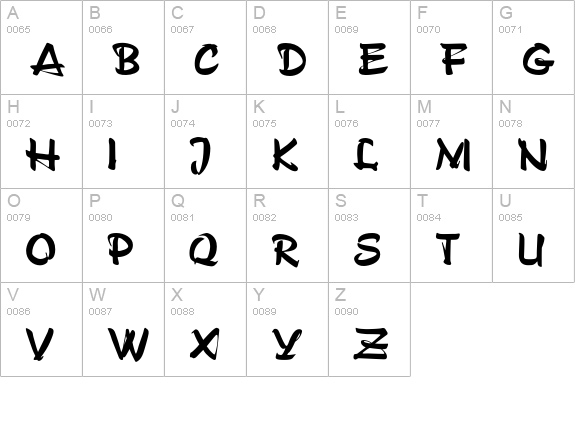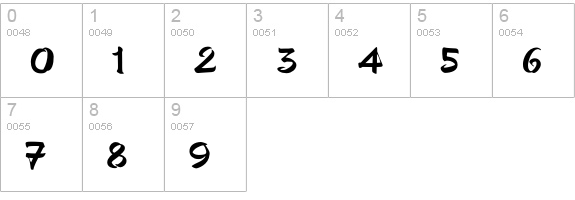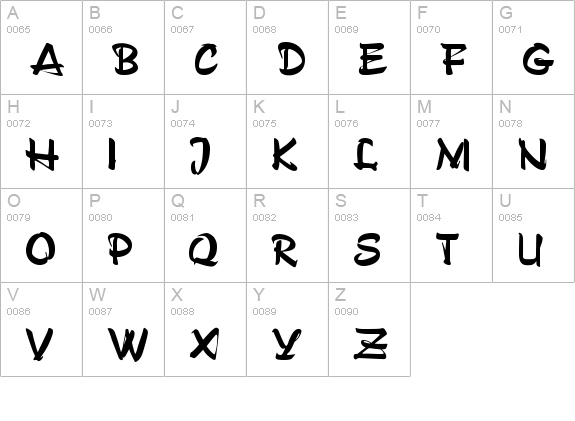
Yitsui Font Details
Yitsui font is a modern and stylish typeface that exudes elegance and sophistication. With its sleek lines and clean design, this font is perfect for a wide range of design projects, from branding to editorial design. Its versatility makes it a go-to choice for designers looking to make a statement. But the best part? Yitsui font is completely free to download at FontsMarket.com! That's right, you can add this beautiful font to your collection without spending a dime. So why wait? Elevate your designs with Yitsui font today and make a lasting impression.